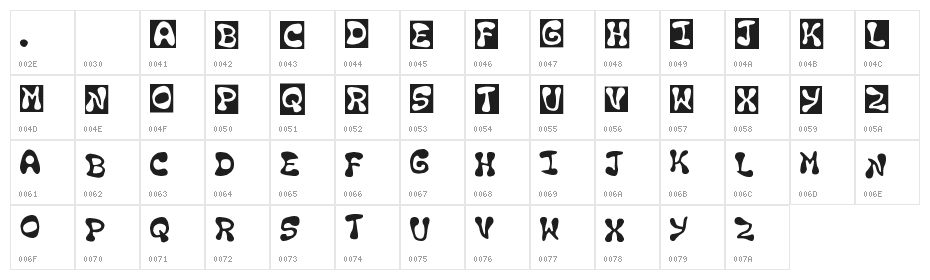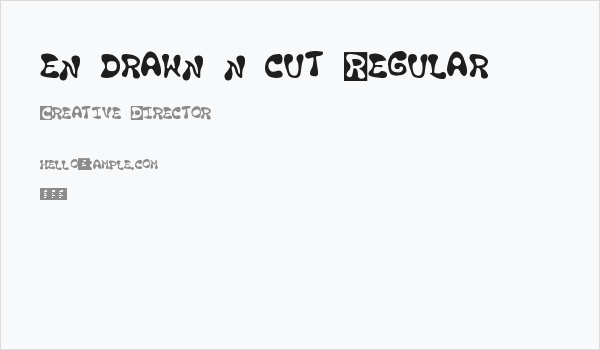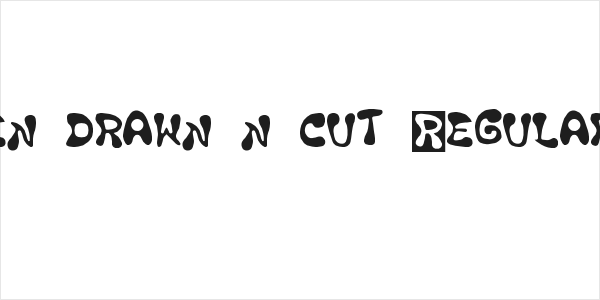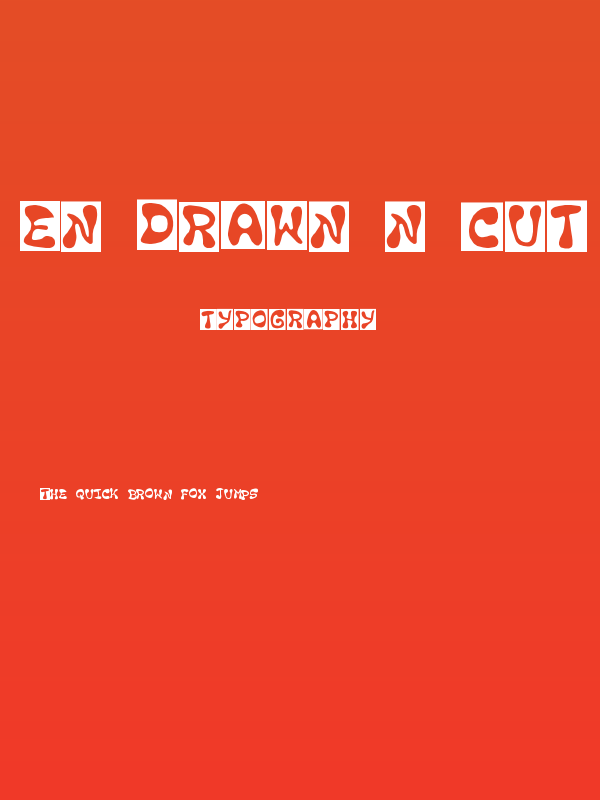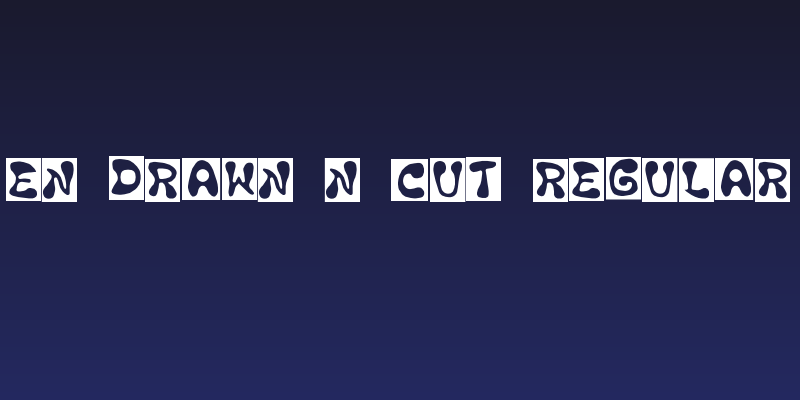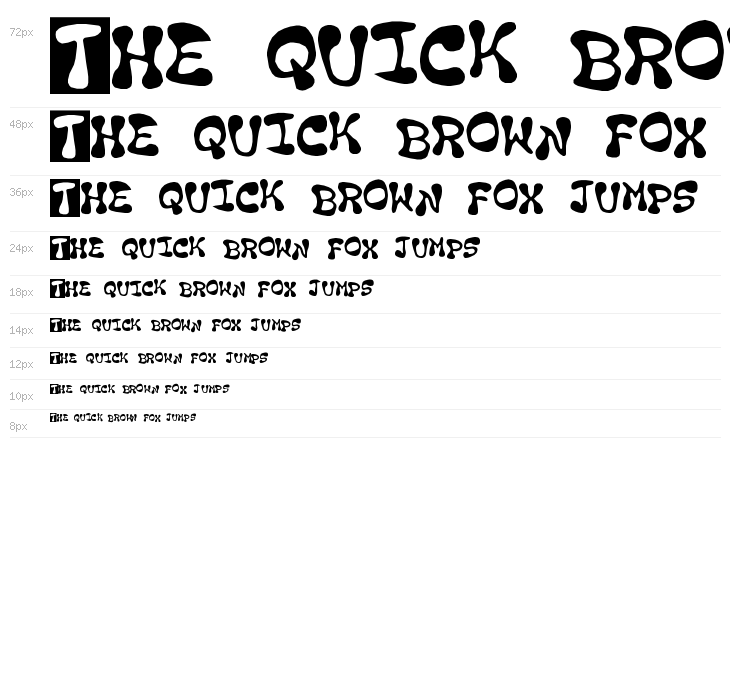
en drawn n cut Regular Font
en drawn n cut Regular Description
This font features a playful and bold design with a hand-drawn aesthetic. Each character is uniquely crafted with irregular, organic shapes that give it a whimsical and artistic feel. The uppercase letters are enclosed in square backgrounds, adding a distinctive cut-out effect. The lowercase letters maintain the same playful style, with exaggerated curves and varying stroke widths. The numbers and special characters follow the same design principles, ensuring consistency across the font. This font is ideal for creative projects that require a fun and eye-catching typeface.
| Overall Style | Playful, Artistic |
| Proposed Projects | Ideal for children's books, playful branding, posters, and creative invitations. |